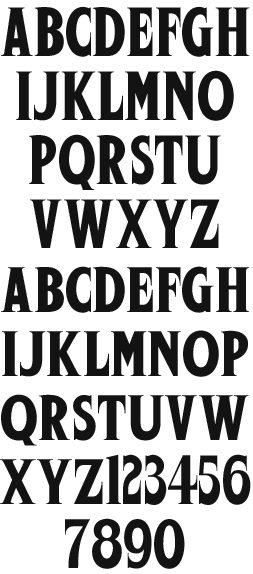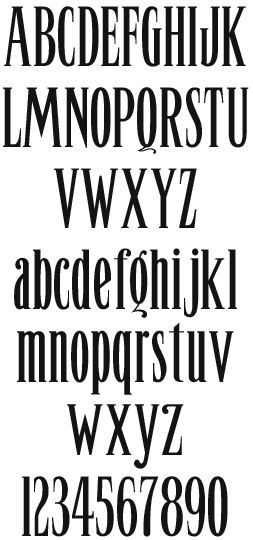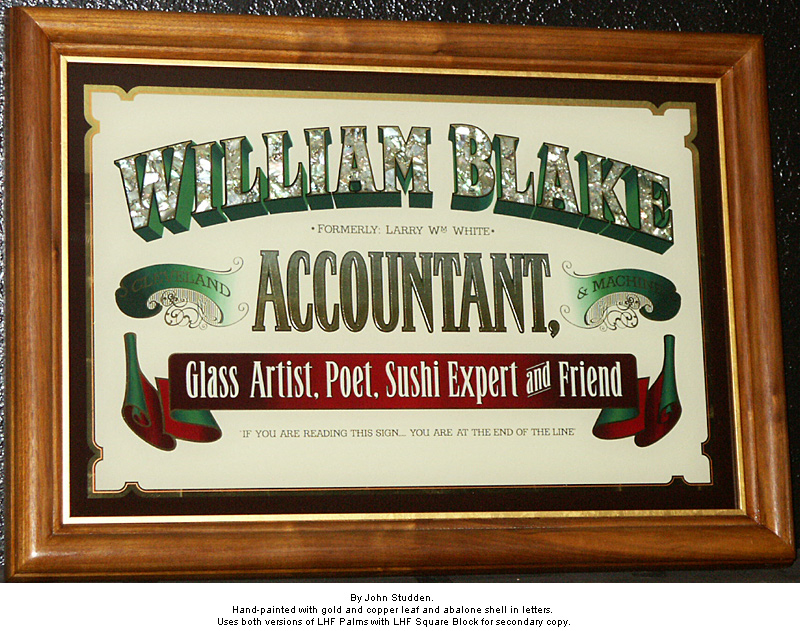
LHF Palms Inspired from the "Palms Ornaments" catalog from 1880. The Palms Brothers created ornamental (scrolls and such) transfers for sign painters to use in their work. This lettering was found on the cover of that catalog. Letters have a quirky and unrefined hand-lettered appearance that was prevalent during this period. Set includes two fonts.